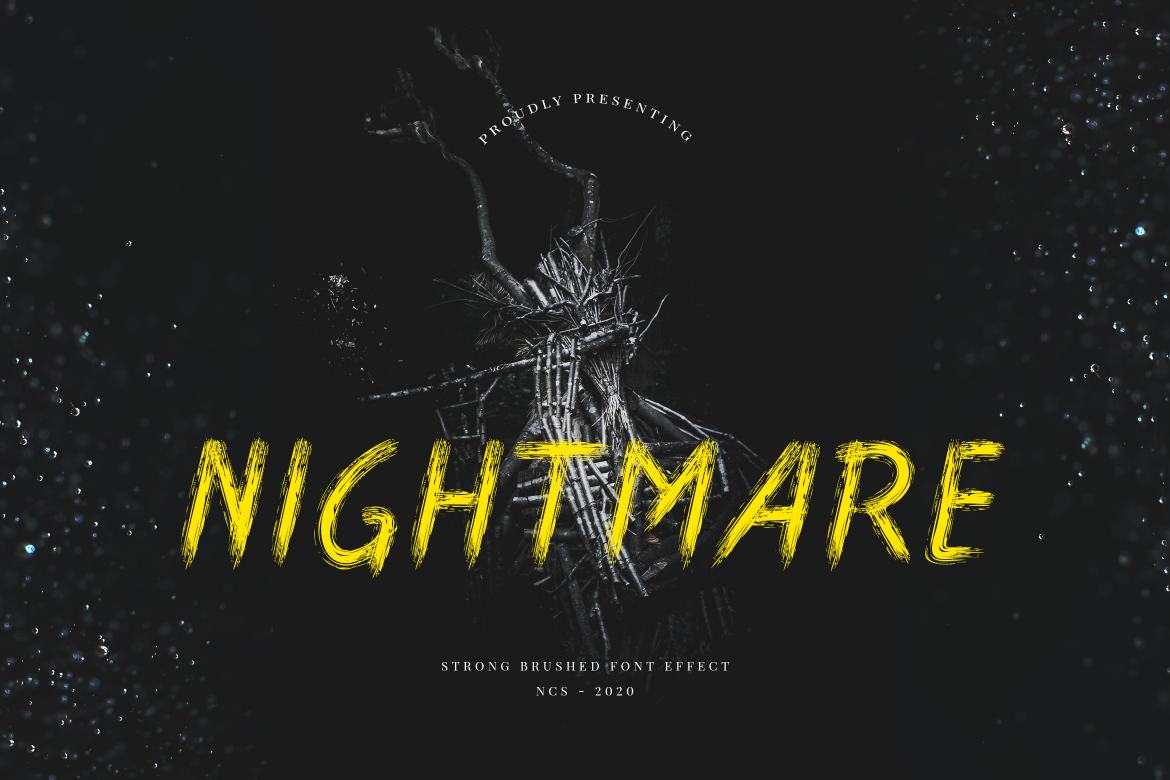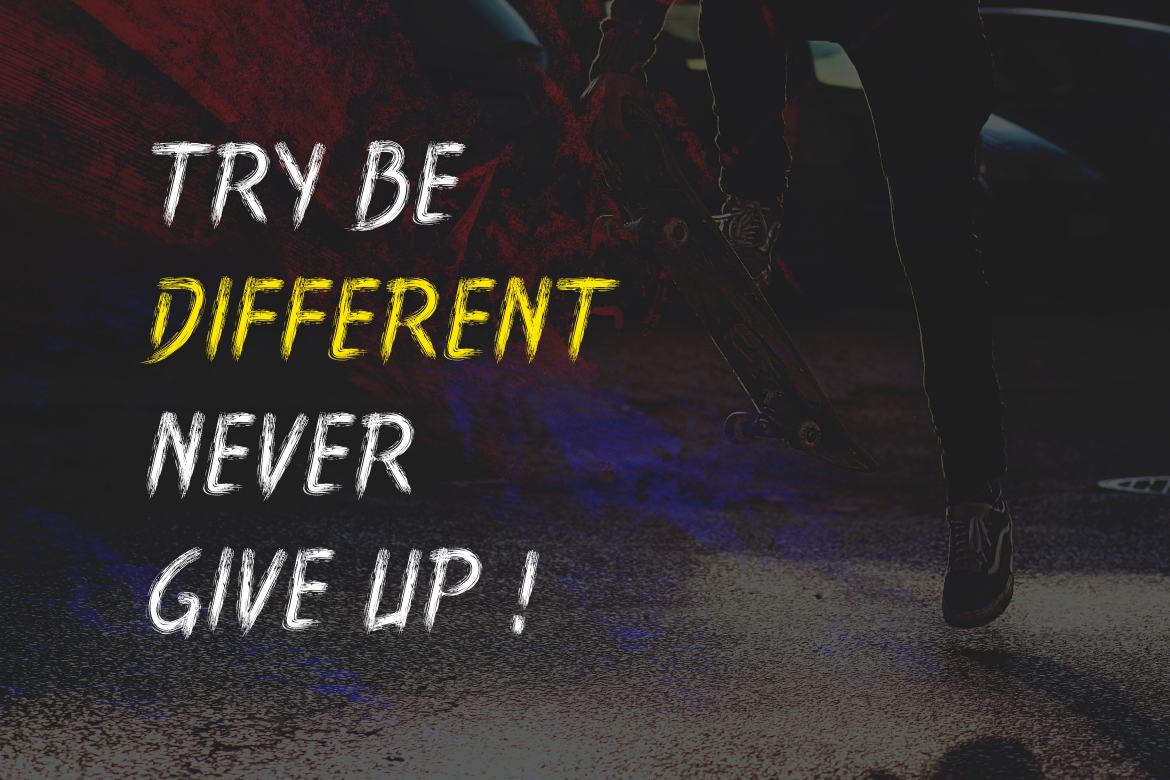
Boldace - FREE Brush Font
Boldace Brush
A strong brush font carefully made from scratch, all glyph are in unique uppercase style. Large and very attractive brush display font view, with a little rough style. It will be perfect for posters, packaging, advertisements, headlines, branding, signboards, and whatever else you want from an urban look and feel.
• all caps, numeral and punctuations
• rough brush style